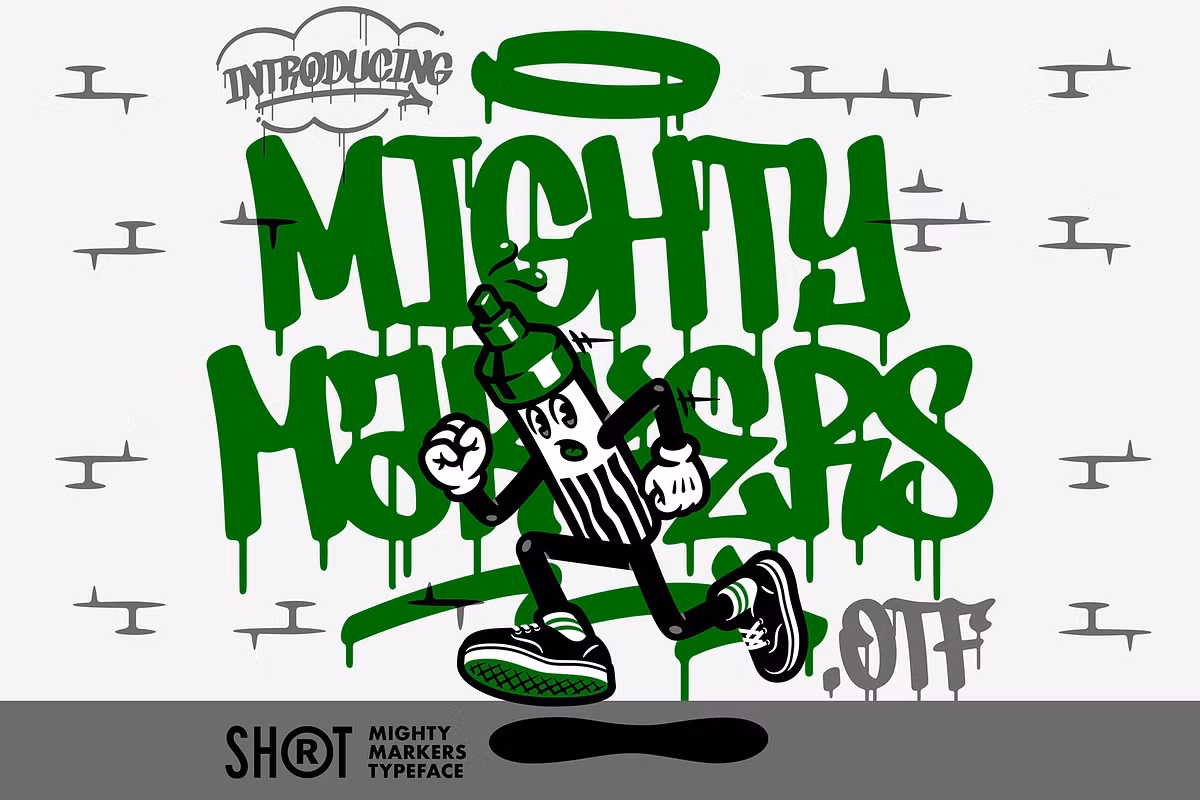
Mighty Markers Typeface Free Download is a fun, bold, and expressive display font that mimics the look of hand-drawn markers. Featuring thick strokes, irregular edges, and playful character shapes, this font is perfect for casual projects, branding, logos, posters, and social media graphics that need an energetic and handmade feel.
Its vibrant and dynamic design makes it ideal for projects that require a youthful, creative touch, whether you're designing for events, advertisements, or fun product packaging. Mighty Markers adds personality and flair to any layout, making it stand out with a unique, handcrafted style.